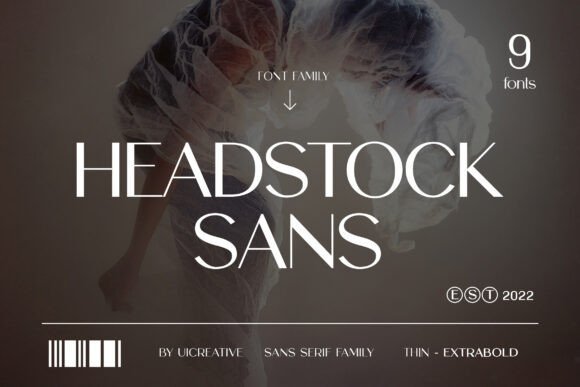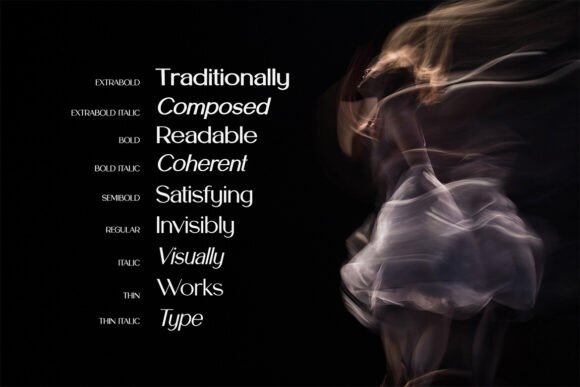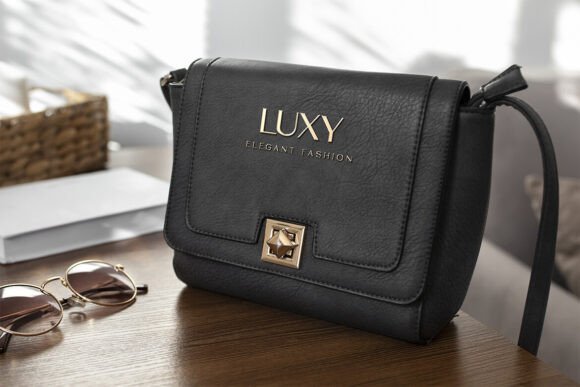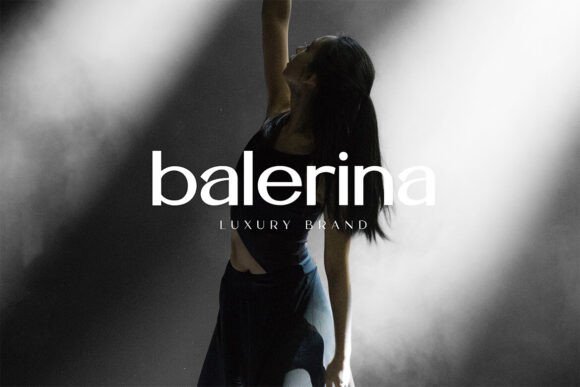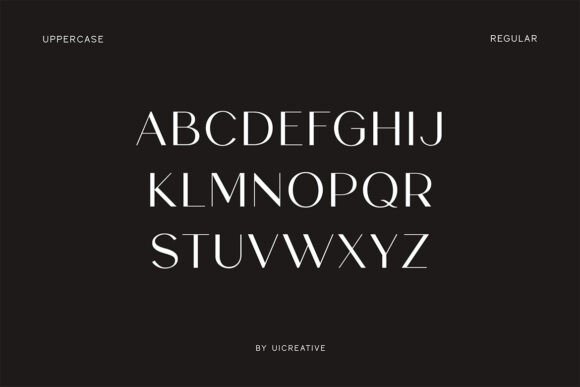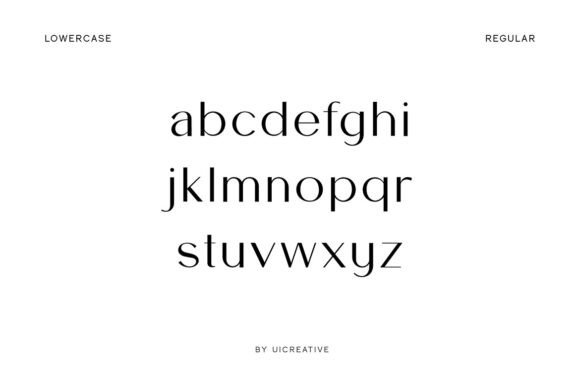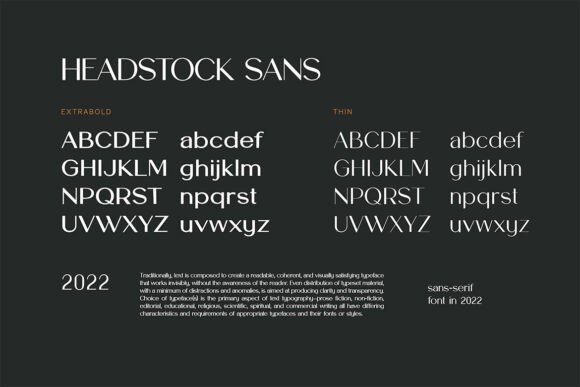
The Perfect Harmony of Style and Substance: Unveiling Headstock Sans Font
As designers, we’ve all been there – staring at a blank canvas, waiting for that elusive spark of creativity to strike. And then, it happens: a font catches our eye, and suddenly, the entire project falls into place. For me, that font was Headstock Sans Font, a modern display font that exudes elegance, sophistication, and a hint of playfulness.
Headstock Sans Font is more than just a pretty face; it’s a versatile tool designed to elevate your designs to new heights. Whether you’re creating a signature, stationery, or a logo, this font is sure to make a statement. Its masculine and feminine qualities make it an ideal choice for fashion-related branding or editorial design. As a designer, having the right font at your fingertips can be a game-changer, and Headstock Sans Font is definitely one to consider.
Key Features of Headstock Sans Font
- Font Family: Headstock Sans is a sans-serif font family.
- Unique Characteristics: Designed with a modern and clean aesthetic, Headstock Sans features a geometric shape and subtle rounded edges, making it perfect for digital interfaces and publications.
Headstock Sans Font Review
Overall, I think Headstock Sans is a solid addition to any designer’s font collection. Here are some things that stand out:
- ✨ Clean and modern design that’s perfect for digital products
- ✨ Excellent legibility, making it a great choice for body text
- ✨ A decent character set, covering the basics and some accented letters
- ⚠️ The font doesn’t have a lot of stylistic flexibility, which might limit its use in more creative projects
- ⚠️ Some users may find the sans-serif feel a bit too generic or bland
- ⚠️ The font family is relatively small, which might make it harder to find the perfect variant for a specific design
Overall, I’d say Headstock Sans is a safe choice for designers who want a clean, modern sans-serif font. While it may not be the most exciting or unique option, it gets the job done and is easy to work with.
Headstock Sans Font is a versatile font suitable for various applications, including:
- Web design and digital media
- Print materials, such as brochures and business cards
For optimal results, use Headstock Sans Font in combination with clean and modern design elements.